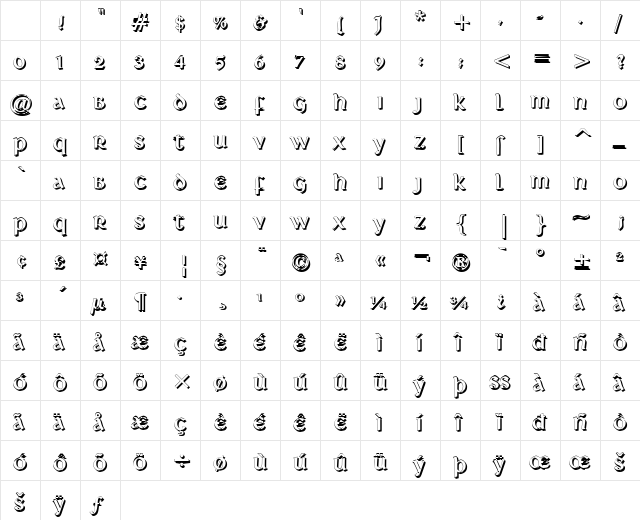
Deutsche Uncialis Shadow Regular Free Font
Deutsche Uncialis Shadow Regular
Deutsche Uncialis Shadow Family
Design Context for Deutsche Uncialis Shadow
Deutsche Uncialis Shadow is built around its visual character rather than neutral utility - its distinctive forms are designed to make an impression at display sizes.